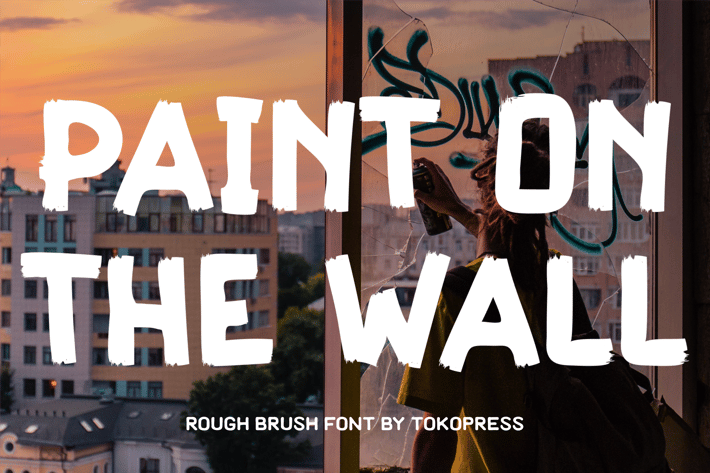
Paint on the Wall - Rough brush font
Paint on the Wall - Rough Brush Font
Paint on the Wall is a bold brush-style display font with raw, expressive energy, perfect for streetwear labels, protest posters, and urban culture campaigns. With its rough-edged strokes, natural flow, and uneven baseline, this hand-painted typeface evokes a rebellious, street-smart vibe. Its gritty, imperfect texture adds visual drama, making it an ideal choice for impactful quotes, loud headlines, and artwork that dares to speak out. The font’s emotional weight and expressive character structure bring urgency and attitude to any message.
Whether you're designing a poster for activism, branding a bold streetwear drop, or crafting social media content with bite, Paint on the Wall delivers punch and presence. Its authentic brush texture and uneven shapes feel unfiltered—just like the messages it helps deliver. This is not just a typeface, it’s a voice—loud, real, and unafraid to disrupt the silence. Use it for protest visuals, editorial titles, graffiti-style branding, or cinematic intros that demand attention.
Key Features :
Urban Expressive Look
- Rugged brush strokes for raw street-style impact
- Perfectly imperfect to reflect real-world grit and voice
Emotionally Charged Display
- Evokes urgency, rebellion, and movement
- Engages viewers instantly with visual noise and tension
* Loud Lettering with Function
- Designed for quotes, poster headlines, and activist messages
- Works beautifully in single-line logotypes or attention-grabbing tags
- Basic latin A-Z and a-z, Numbers, Punctuation